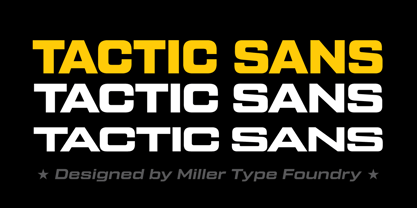
Tactic Sans Font
If you're searching for a sleek, versatile, and contemporary typeface, look no further than the Tactic Sans Font Free Download. This bold sans-serif font is designed with clean lines and modern aesthetics, making it a perfect choice for a wide variety of design projects. Whether you are working on branding, web design, posters, or digital artwork, Tactic Sans brings a fresh and dynamic feel to any creative work.
One of the best features of Tactic Sans is its exceptional readability. Each letter is crafted to ensure clarity across different screen sizes and resolutions, making it ideal for both print and digital platforms. Designers often favor Tactic Sans for its balanced proportions and sharp geometry, which help create a strong and professional visual identity.